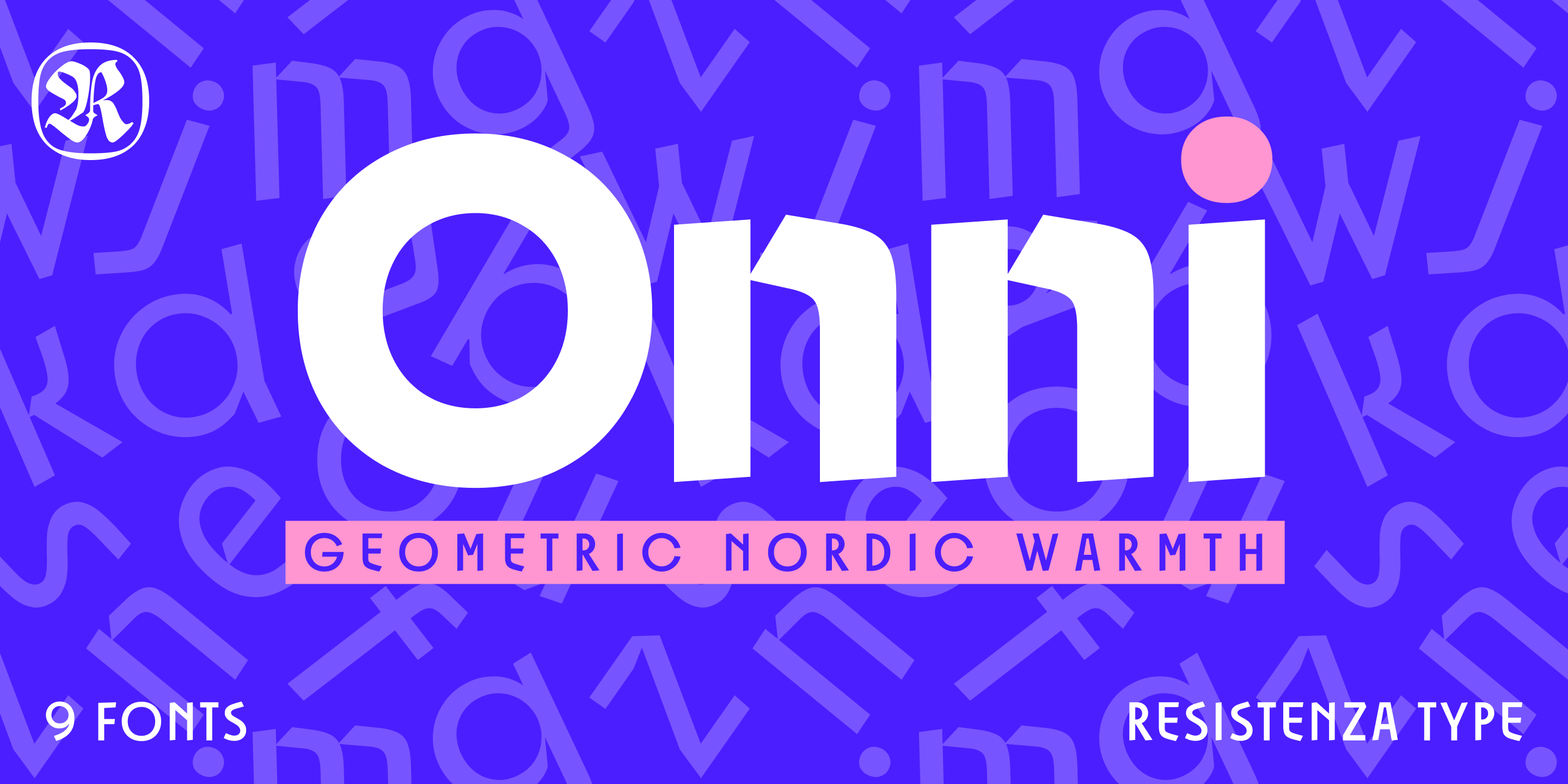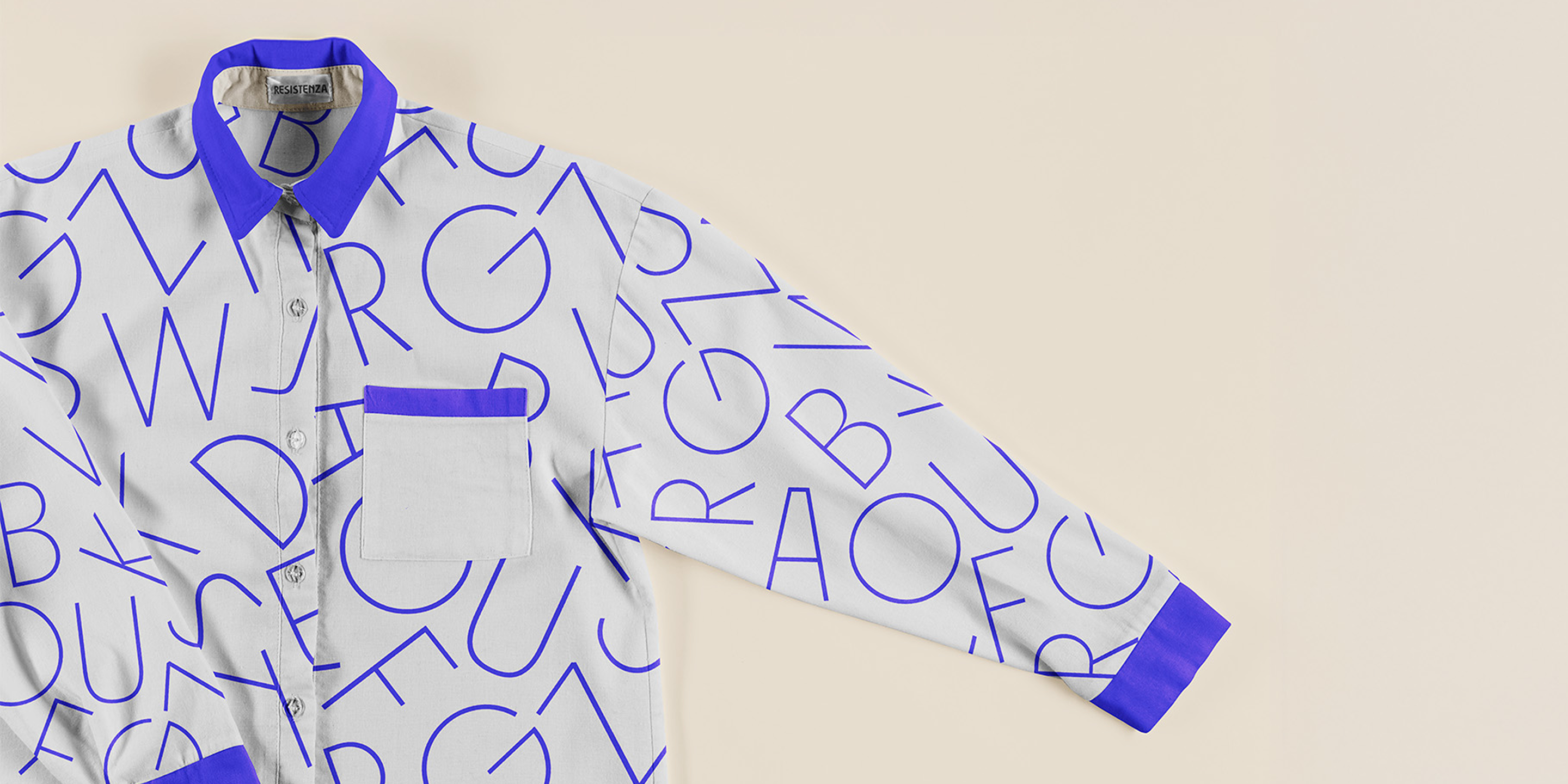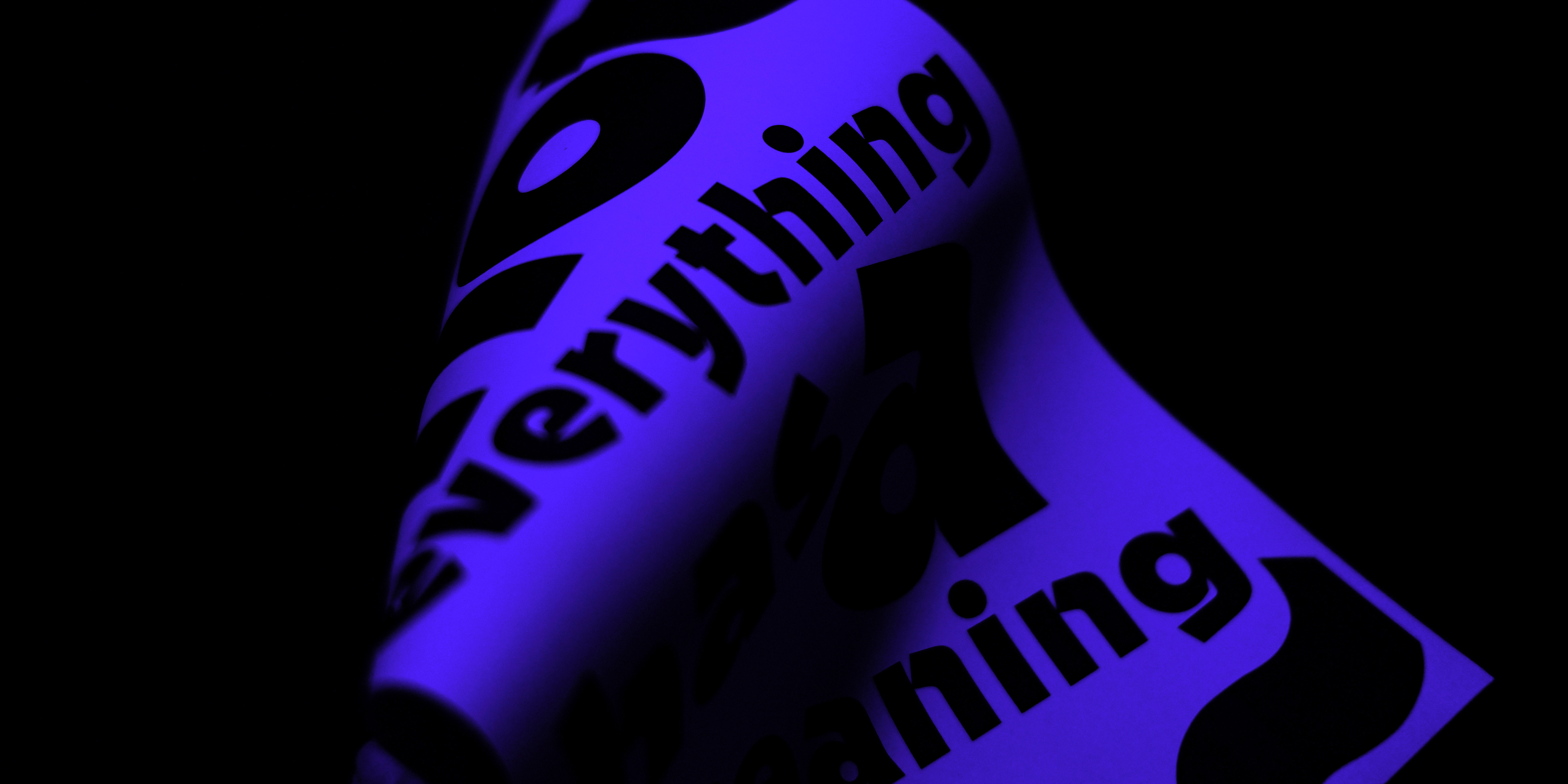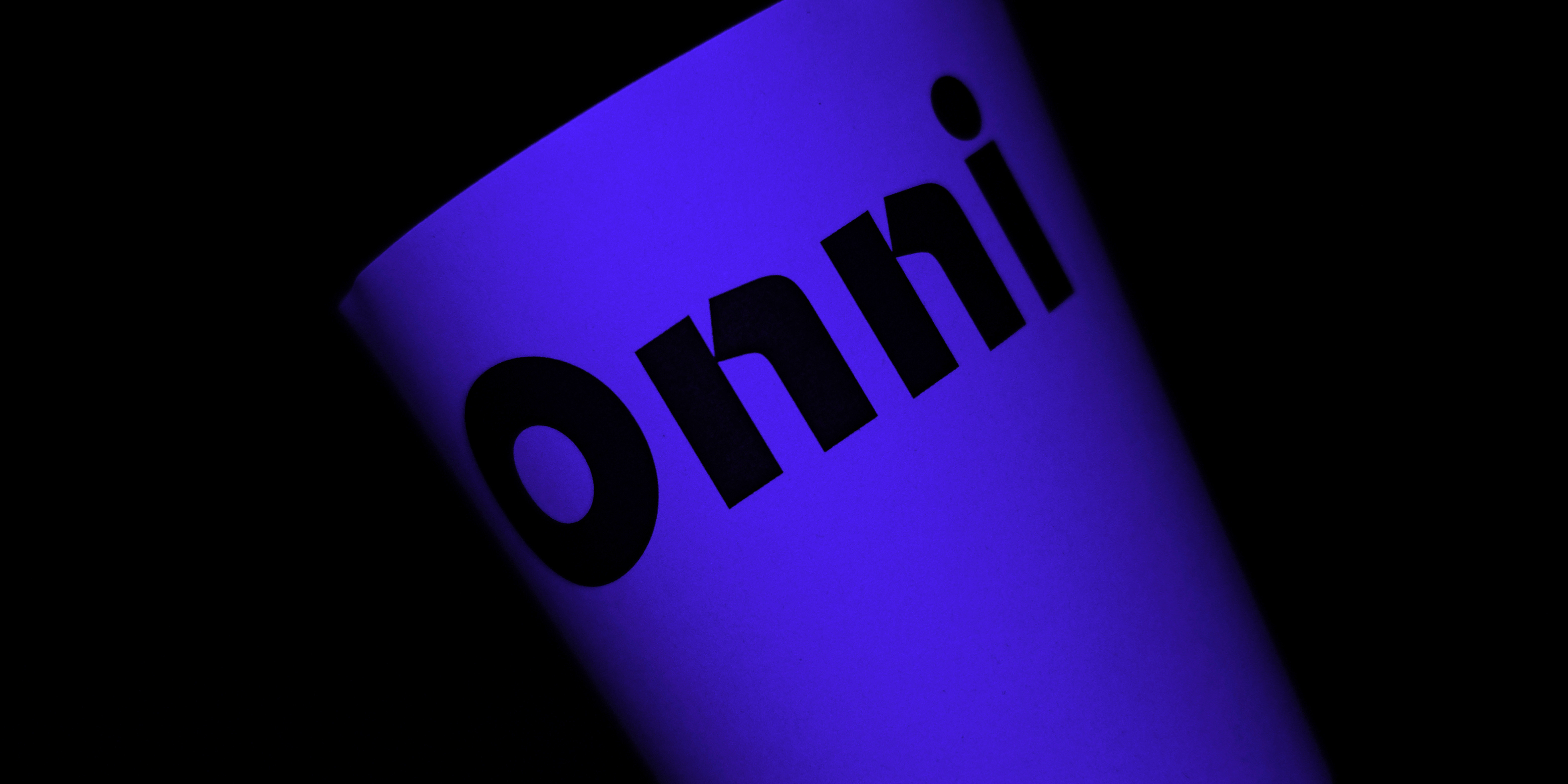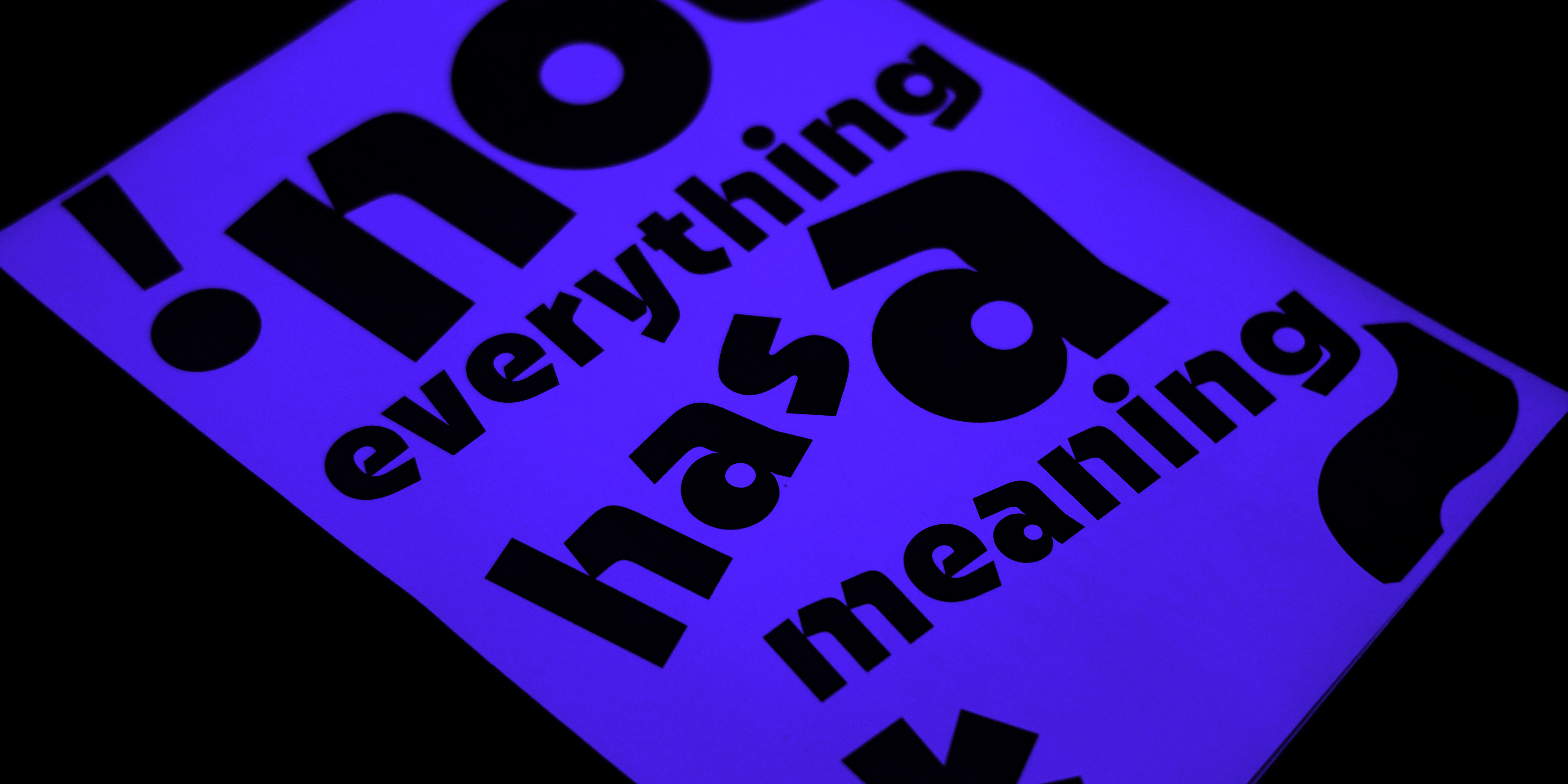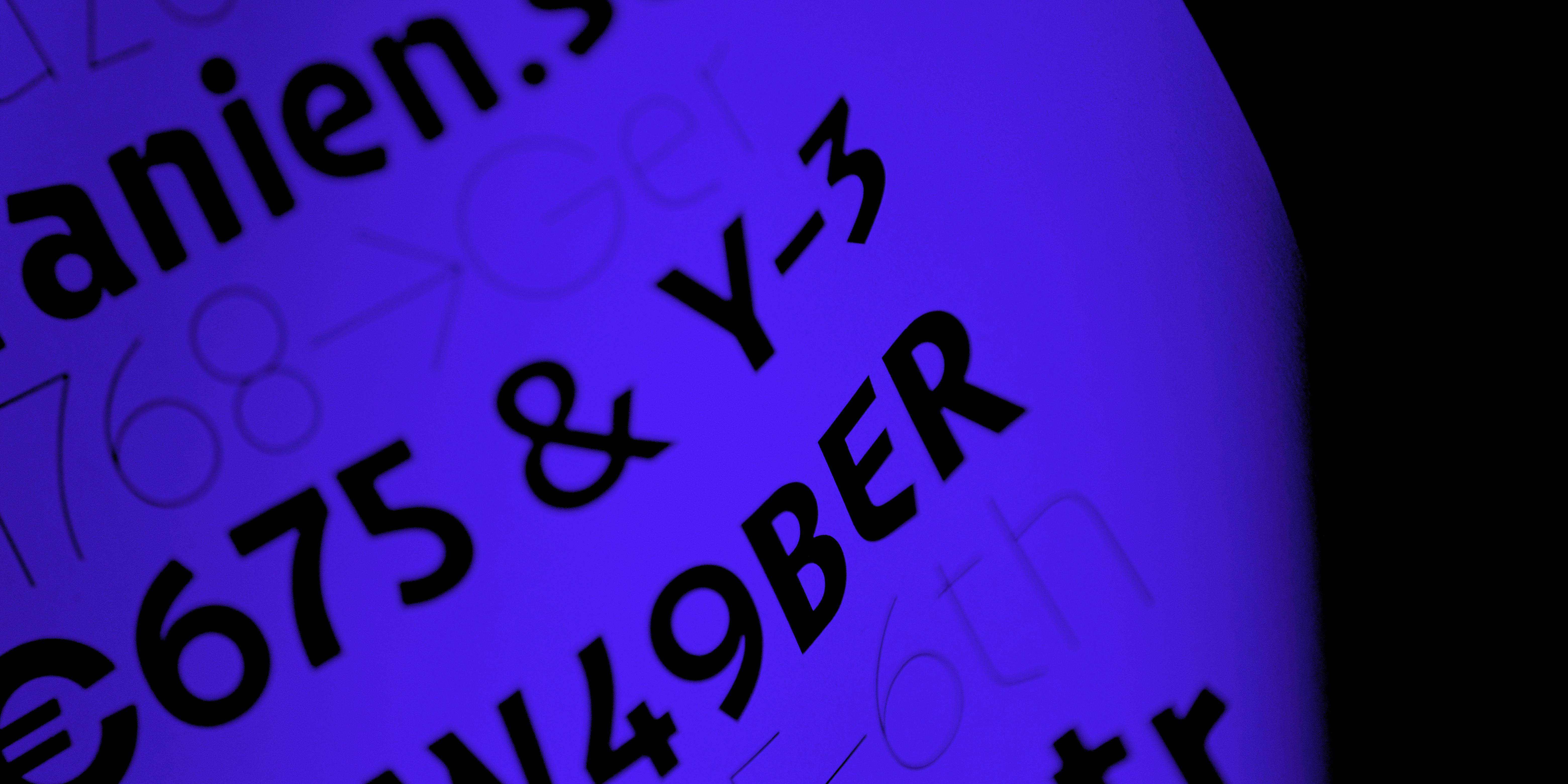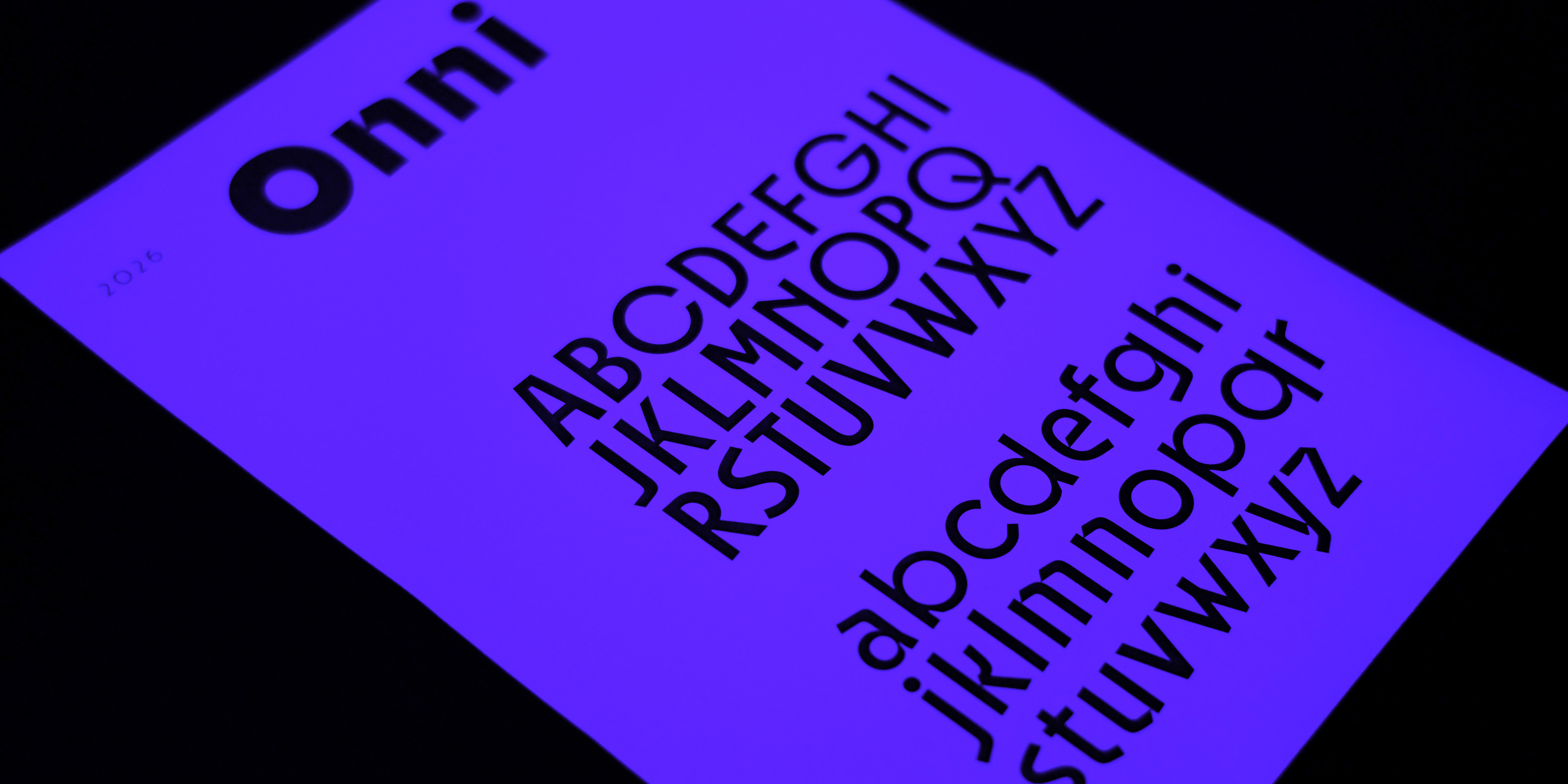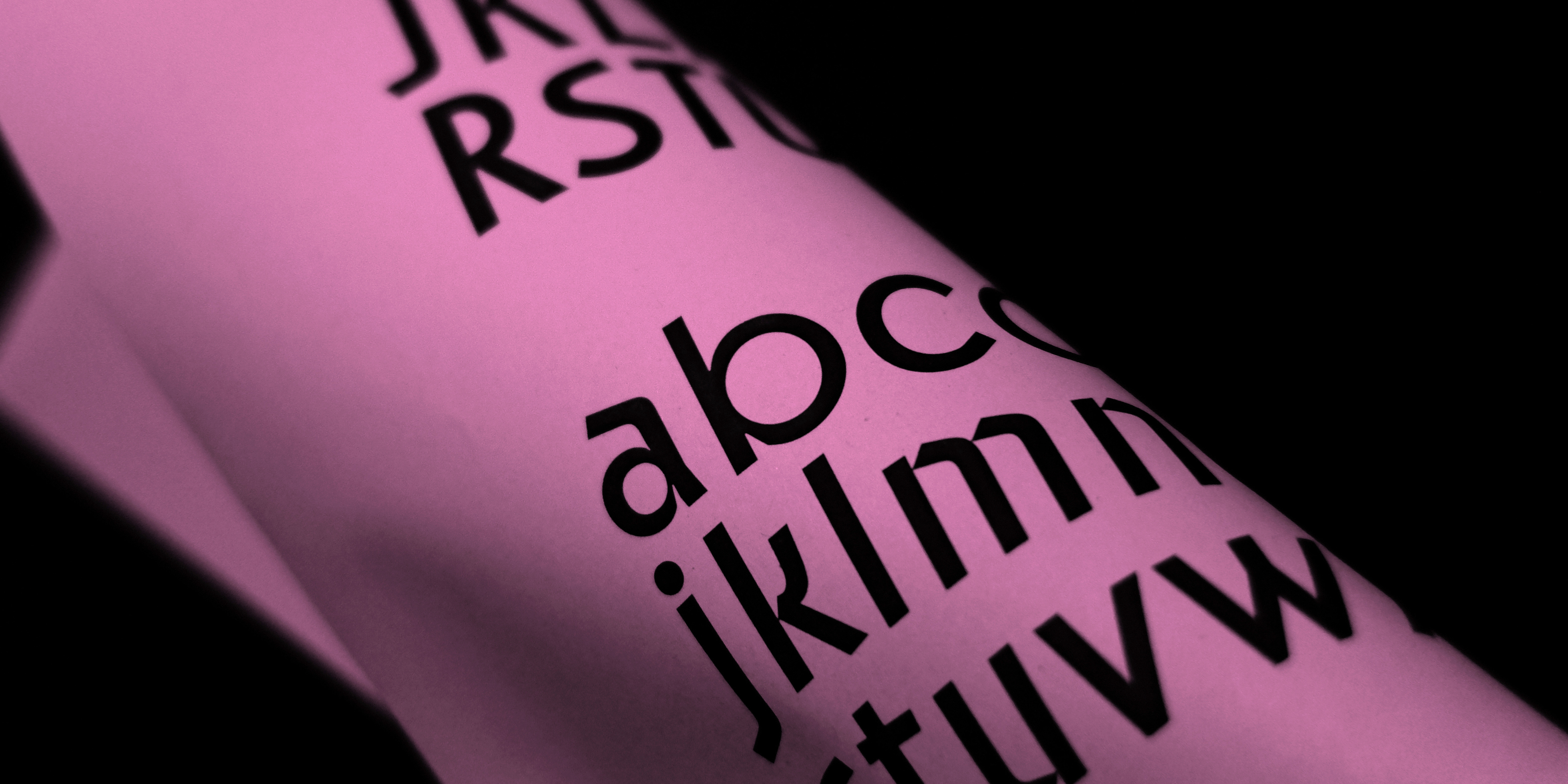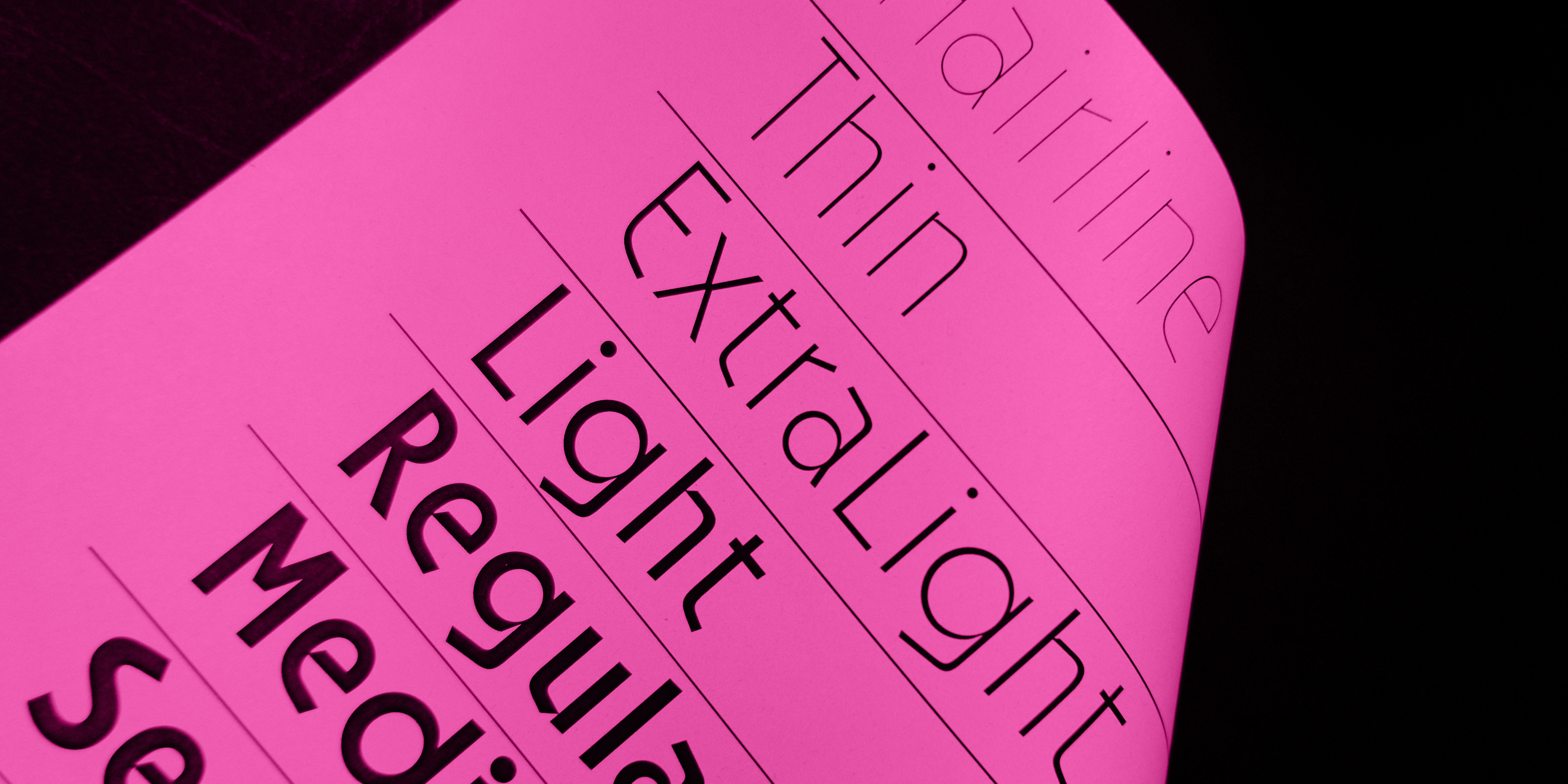
Onni Collection
Onni
Hairline Thin ExtraLight Light Regular Medium SemiBold Bold ExtraBold BlackOnni Variable
Hairline Thin ExtraLight Light Regular Medium SemiBold Bold ExtraBold BlackSans-Serif from Helsinki
Onni
Designed by Resistenza Type FoundryOnni is a contemporary geometric sans serif designed in Helsinki that balances precision with playful disruption. Built on a foundation of perfect circles and sharp angles, it explores the space where Swiss modernism meets experimental typography. It comes in 10 weights, from hairline thin to bold, each designed to work independently or in dynamic combinations. The typeface features quirky, playful proportions with a distinctive mix of straight-edged rectangles and curved forms that create striking visual contrast. The lowercase "e" features a unique triangular cutout, while the swooping R tail and geometrically constructed numerals add distinctive personality. Designed with comprehensive OpenType features including extended language support, ligatures, stylistic alternates, tabular figures, and a full range of currency symbols and punctuation. This experimental display font combines strict geometry with playful rotation—friendly yet bold, modern yet slightly chaotic. Perfectly suited for youth-oriented branding, tech startups, creative studio identities, editorial design, packaging, and any display use where personality matters more than traditional legibility. Onni delivers geometry with attitude—a typeface that refuses to be ignored.